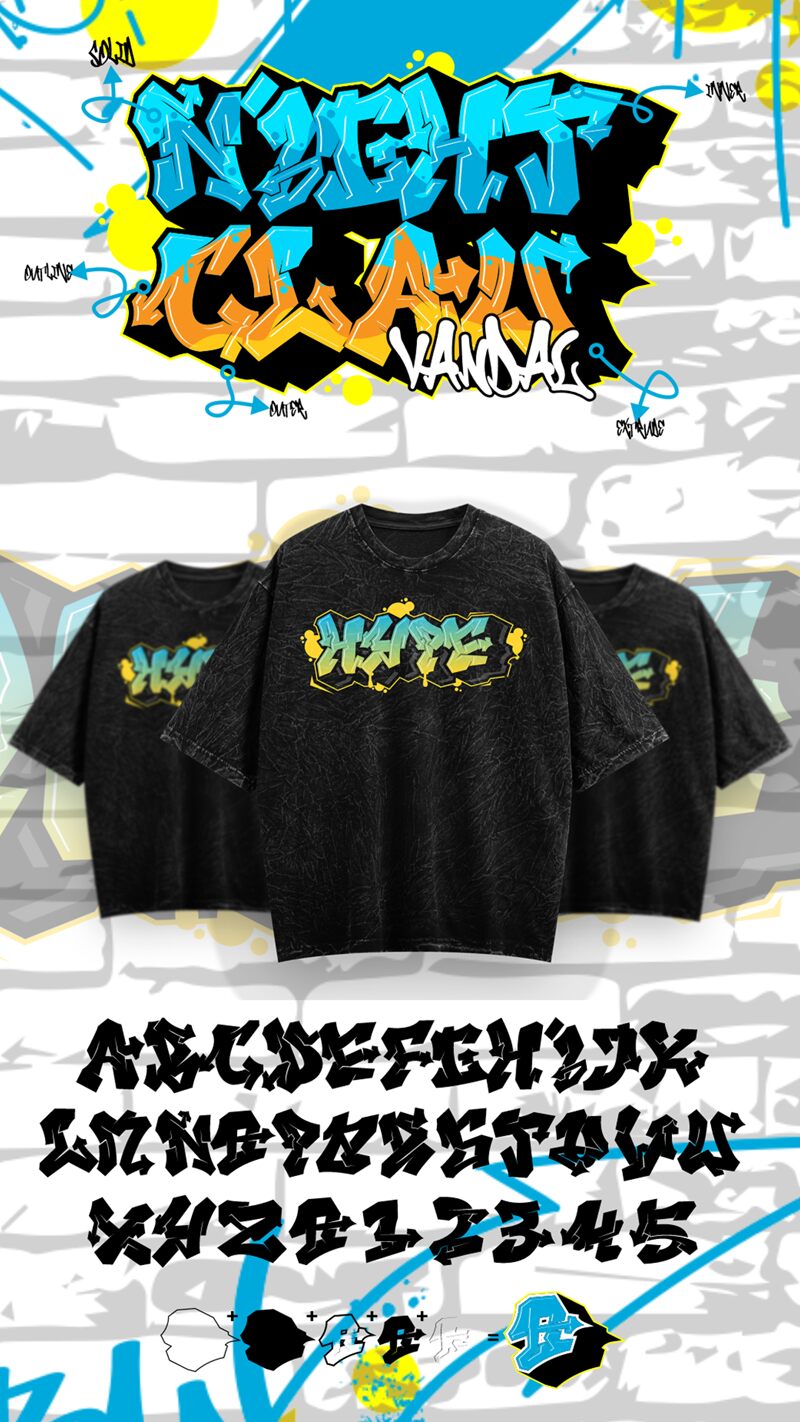
Nightclaw Vandal font family is a graffiti-inspired creation by Cikareotype Studio. The font family comes in 5 different styles which all have an urban edge inspired very evidently by the visual aspect of the street art culture. It is perfectly legible, expressive, and tangible in appearance with a modern edge to the letters it displays. Each letter has an architectural aspect to it; it’s almost as if its structure can be planned and designed, yet it looks much more authentic.
Nightclaw Vandal font family has an intimate and youthful character that provokes freedom. This makes it particularly suitable for any project targeting younger adults. Use it to design poster titles, music album covers, lifestyle magazines, merchandise and apparel, or even packaging design. Pair it with simple classical fonts to maintain its visual impact and ensure that the font is the focal point of your artwork.